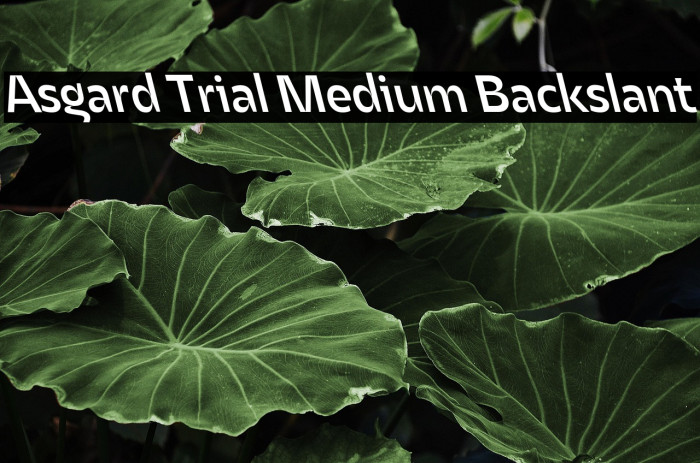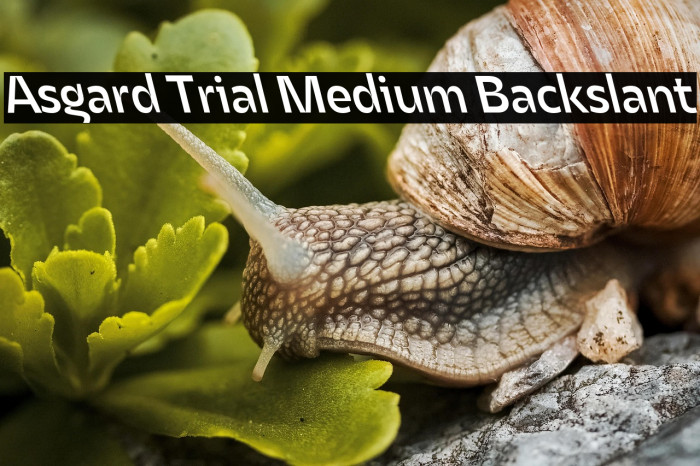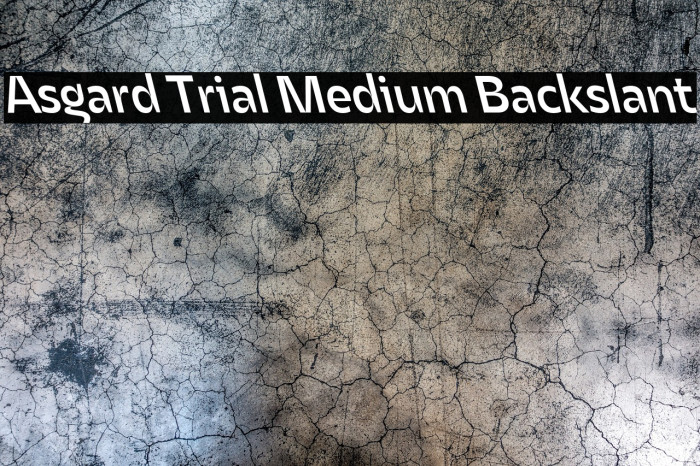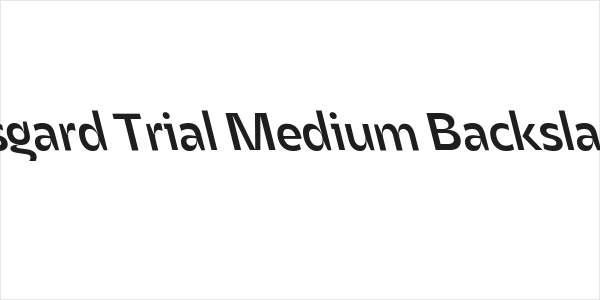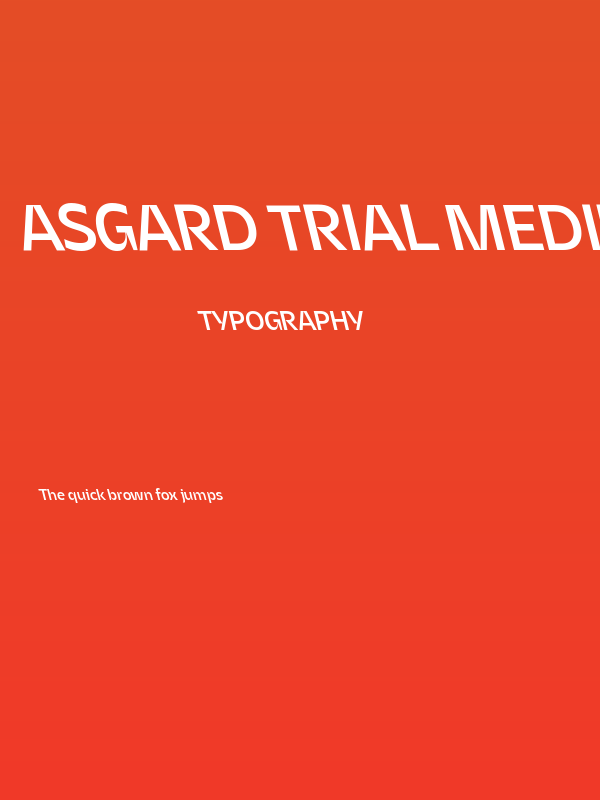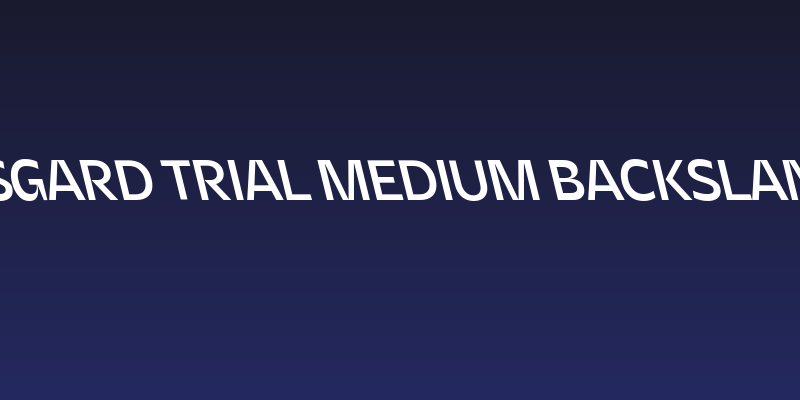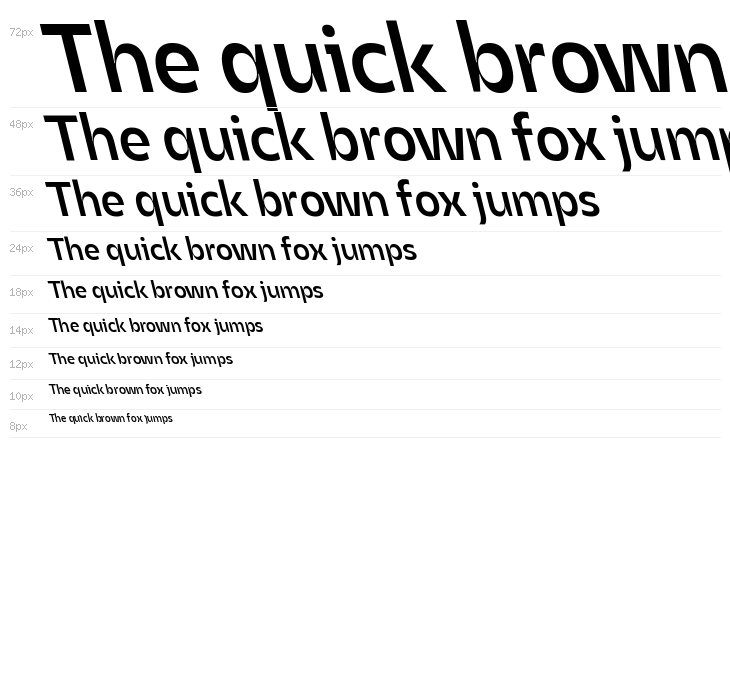
Asgard Trial Medium Backslant Font
Asgard Trial Medium Backslant Description
This font features a distinctive backslant style, giving it a unique and dynamic appearance. The characters are bold and slightly condensed, with a modern sans-serif design. The uppercase and lowercase letters maintain a consistent stroke width, contributing to a clean and cohesive look. The numerals and special characters are designed to match the overall aesthetic, ensuring uniformity across all text. This font's backslant adds a sense of movement and energy, making it stand out in various design contexts.